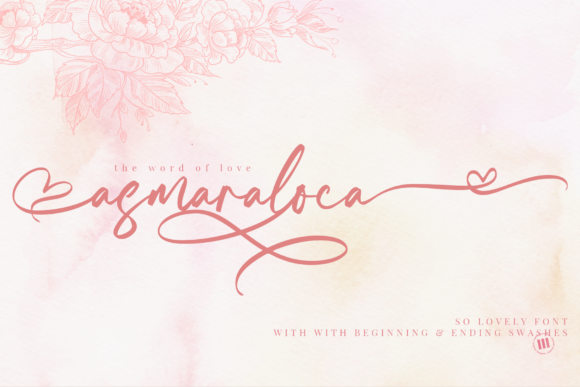
As a designer, there’s nothing quite like the thrill of creating something truly special. Whether it’s a wedding invitation, a heartfelt thank you note, or a logo that captures the essence of a brand, the right font can make all the difference. For me, it’s always been about finding that perfect balance between elegance and personality – and that’s where the Asmaraloca Font comes in.
This beautiful, handwritten font is more than just a pretty face – it’s a versatile tool that can elevate any design. With its flowing curves and subtle flair, Asmaraloca Font adds a touch of whimsy and sophistication to everything from greeting cards to business cards. As a PUA-encoded font, it’s also incredibly easy to use, making it a valuable addition to any designer’s toolkit.
Asmaraloca Font Key Features
- Font Style: Asmaraloca is a beautiful, elegant script font, ideal for creative projects, invitations, and branding.
- Size: The font size varies, but it’s designed to be used at larger sizes (around 24-48 points) to showcase its intricate details.
- Unique Characteristics: Asmaraloca features a unique blend of traditional and modern elements, with swashes and flourishes that add a touch of sophistication.
Asmaraloca Font Review
Asmaraloca Font, with its unique and elegant design, has caught my attention. Here’s my honest review of this beautiful font.
- Elegant Script Design: The Asmaraloca Font boasts a beautiful, flowing script design that is perfect for titles, headings, and other decorative text.
- High-Quality Characters: The font includes a wide range of characters, from uppercase and lowercase letters to punctuation marks and numbers.
- Good Legibility: The font is highly legible, even at small font sizes, making it suitable for various design projects.
- Limited Font Weight Options: Asmaraloca Font comes with only a few font weights, which might limit its use in certain design projects.
- No Italic or Oblique Styles: The font does not include italic or oblique styles, which might be a drawback for designers who prefer to use these styles.
Overall, I’m impressed with the Asmaraloca Font’s unique design and high-quality characters. While it has some limitations, it’s still a great choice for designers looking for an elegant script font. With some additional font weight options and italic styles, it could be even more versatile.
Tips: Use the Asmaraloca Font for creative and artistic designs, such as invitations, posters, and social media graphics.
Tips: Use the Asmaraloca Font for high-end designs, such as magazine layouts, brochures, and business cards.
Tips: Use the Asmaraloca Font for presentations, reports, and documents that require a touch of elegance and sophistication.
The Asmaraloca Font is suitable for a variety of designs, including:
Invitations and event materials
Posters and social media graphics
Business cards and brochures
Magazine layouts and articles
Presentations and reports